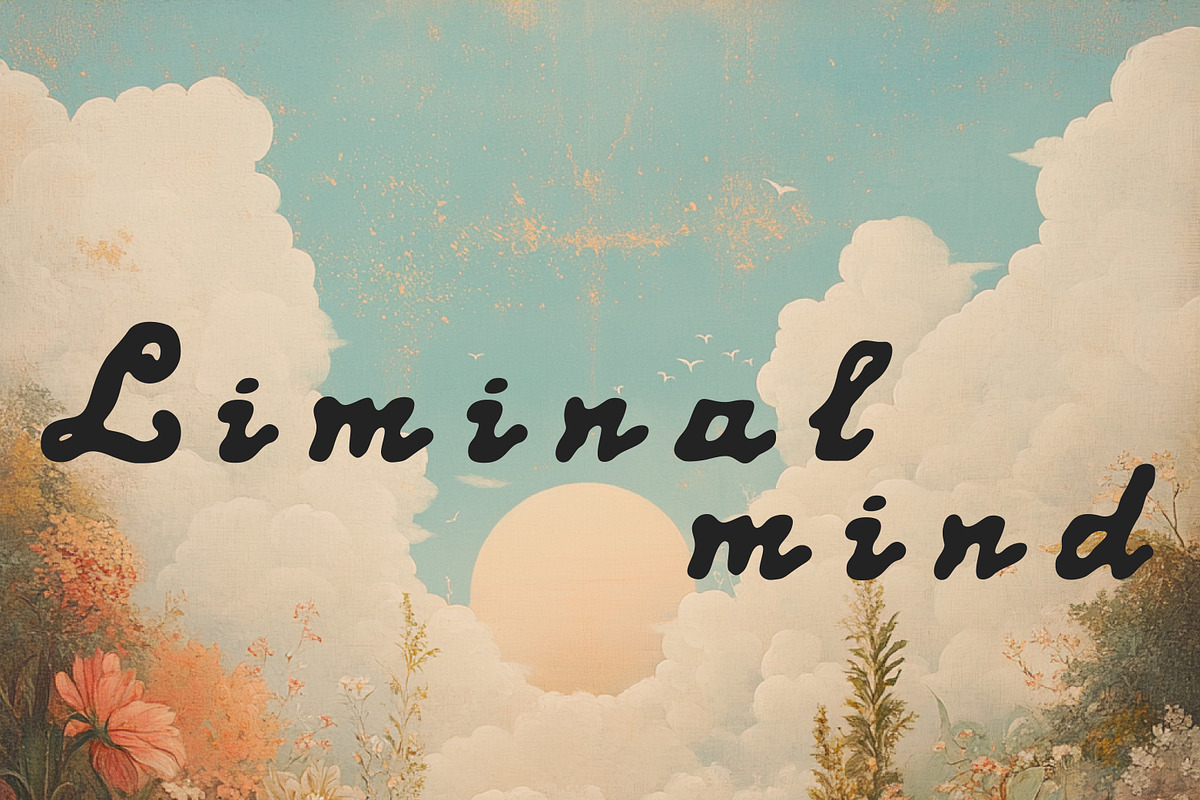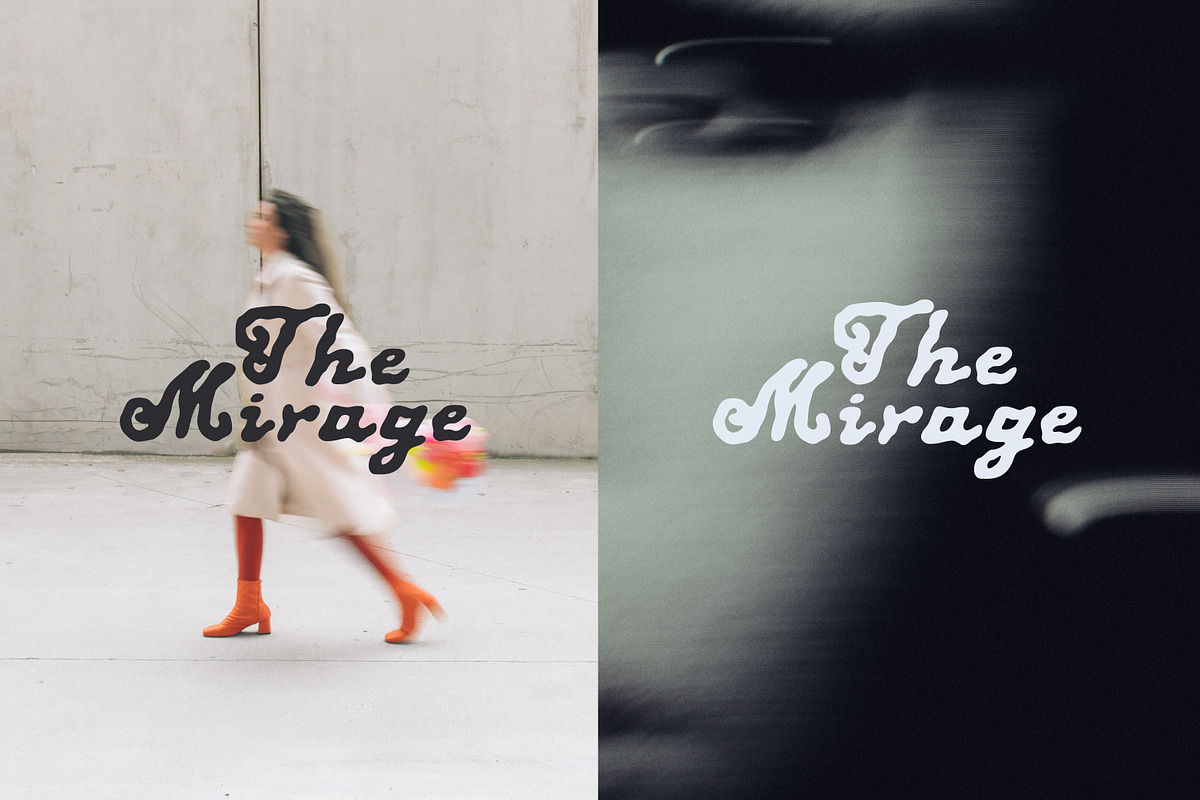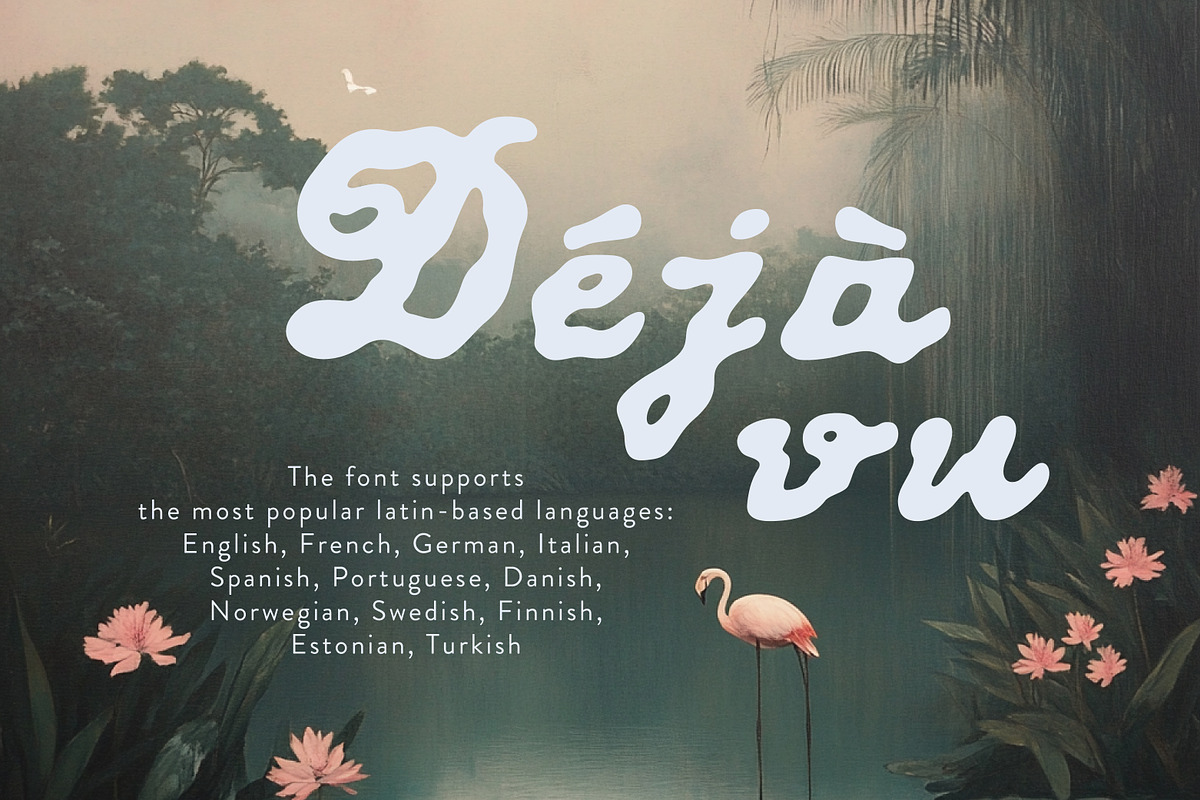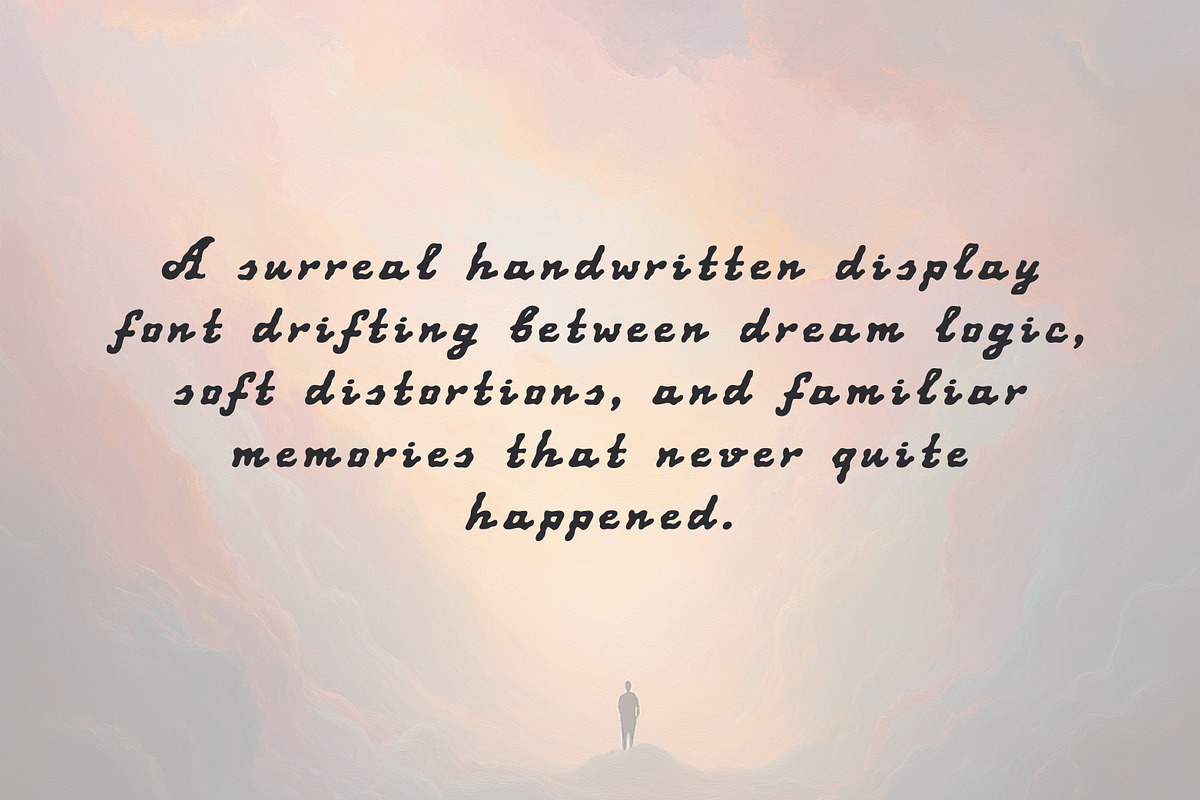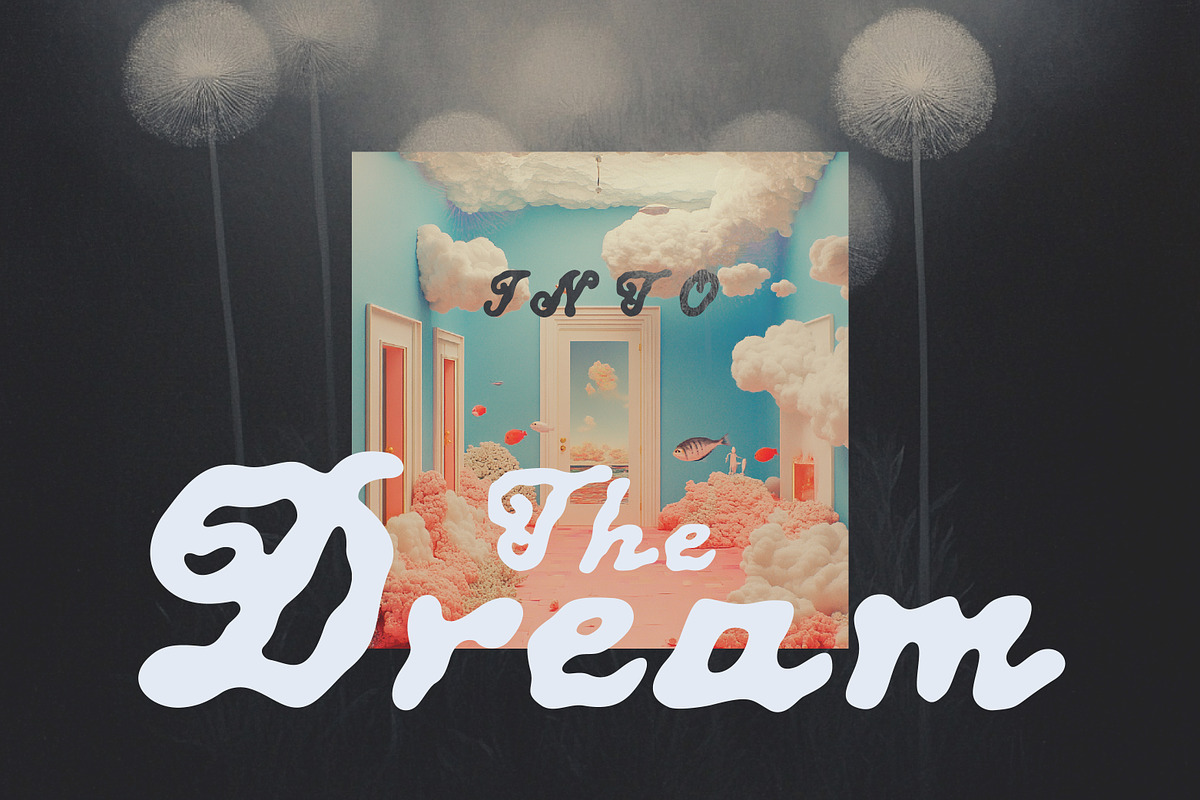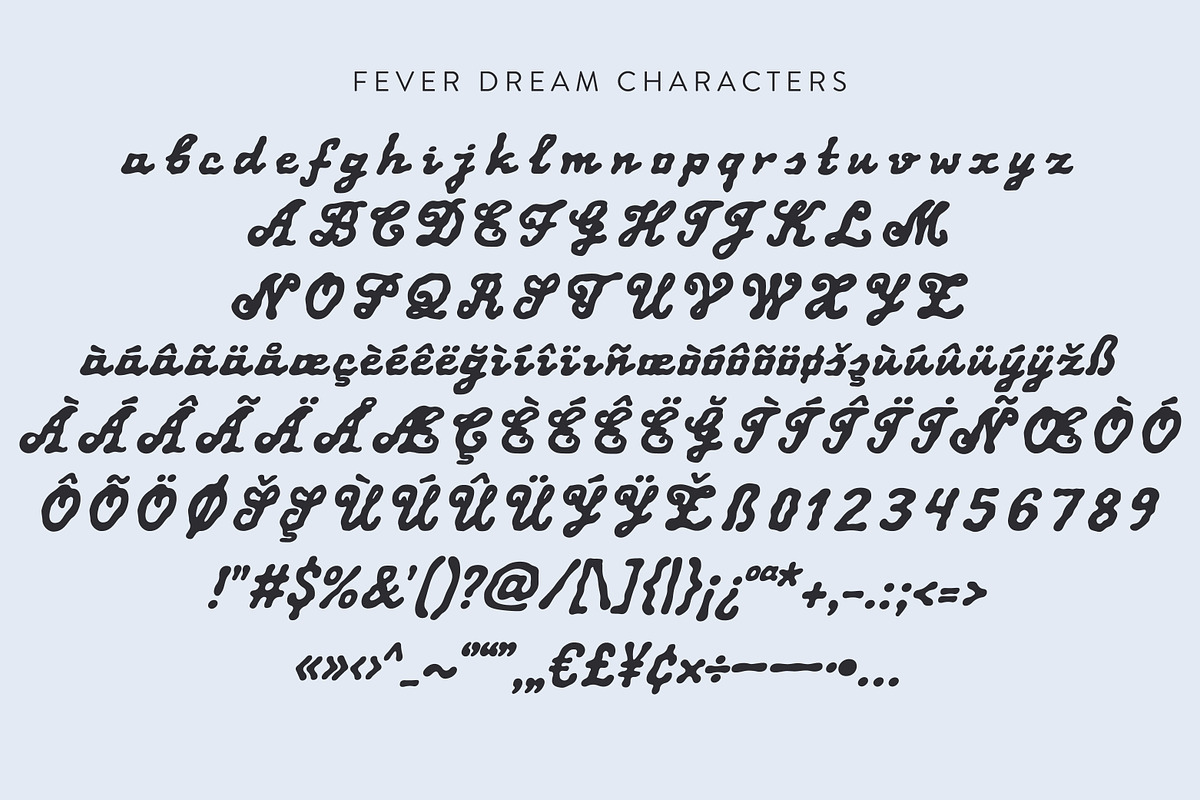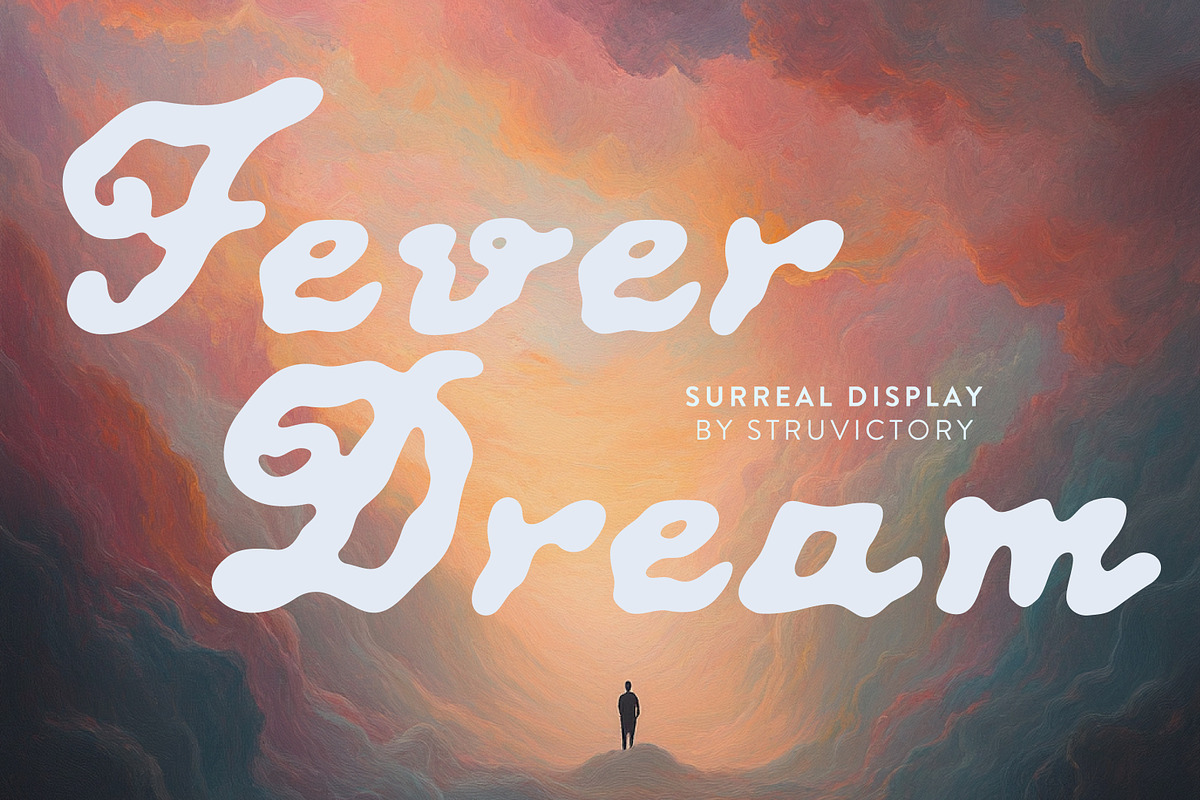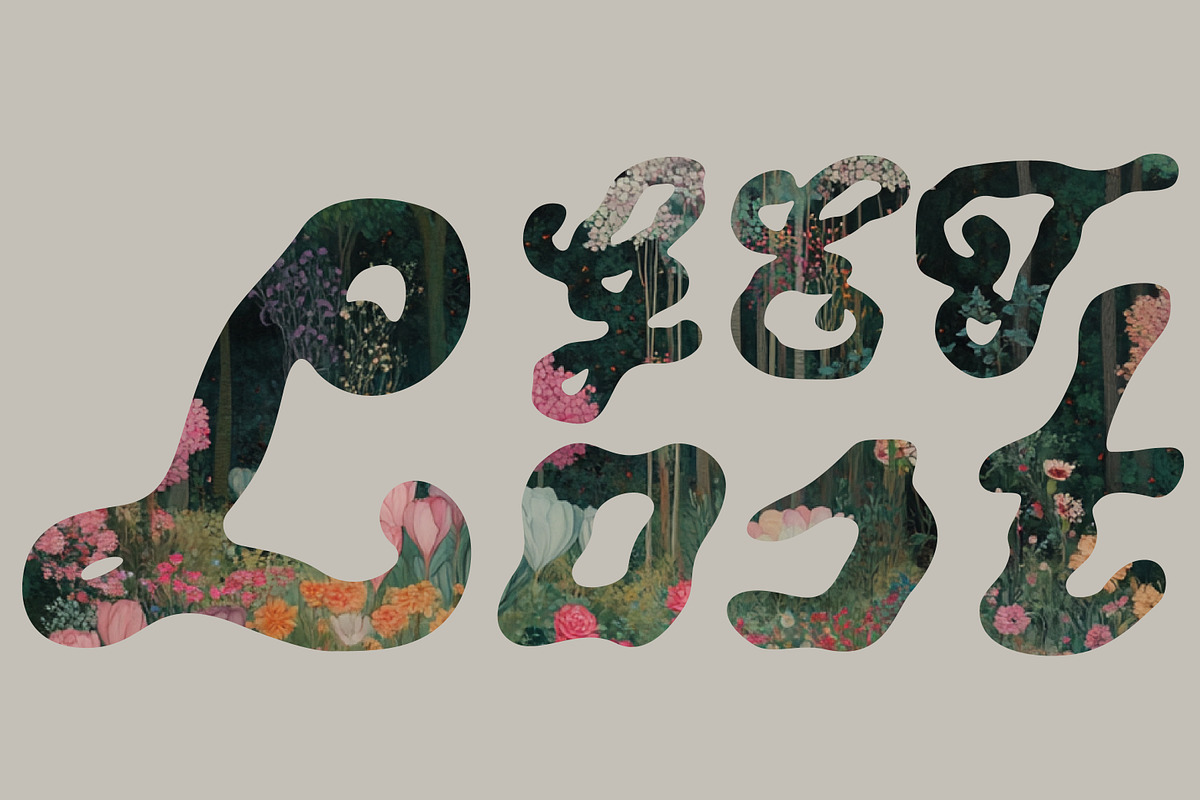
Fever Dream Surreal Handwritten Sans
Fever Dream is a surreal handwritten display font inspired by dreamcore aesthetics, liminal imagery, and the strange beauty of distorted memories. Its soft, melting shapes, uneven rhythm, and playful imperfections create a sense of movement between reality and imagination. Designed to feel expressive, immersive, and slightly uncanny, Fever Dream is perfect for posters, album covers, editorial layouts, branding, social media graphics, fashion projects, and creative visual identities.
Fever Dream Display supports the most popular latin-based languages, you can check the symbol you need by typing a couple of words in the font preview box.